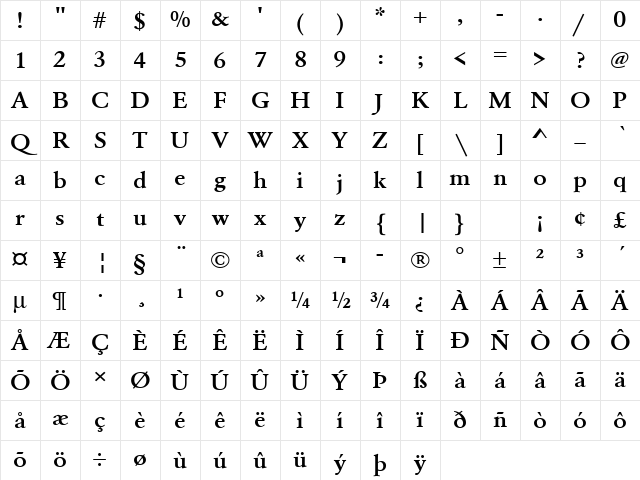
URWGaramondTDemExtWid Regular
Design Context for URWGaramondTDemExtWid
URWGaramondTDemExtWid is a composed and adaptable typeface that performs quietly and consistently across a wide range of design contexts.
Pro Tip: Use URWGaramondTDemExtWid in both headline and body roles to test its range before committing to a single application.